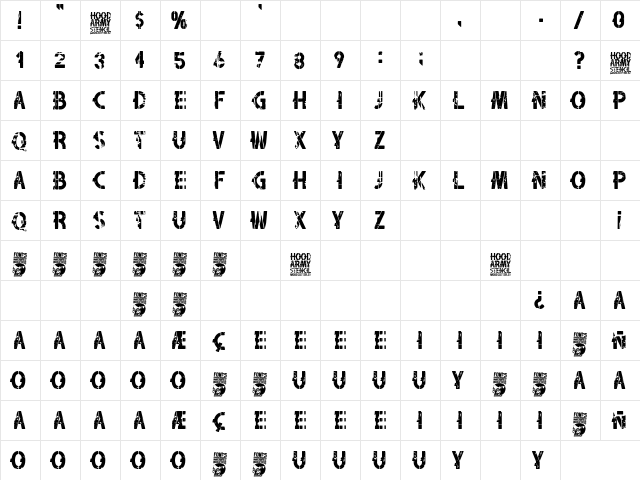
Hood Army Stencil Regular
Design Context for Hood Army Stencil Typeface
Hood Army Stencil draws on military and industrial lettering traditions, with forms that communicate strength and precision.
Designed for tactical branding, military-inspired apparel, action game UI, and utility-focused signage.
Font Pairing: Use alongside a condensed or geometric sans for supporting copy — keep the pairing bold, functional, and free of ornament.
Pro Tip: Use Hood Army Stencil at medium-to-large sizes where its utilitarian structure can be appreciated — the character detail gets lost at small sizes.